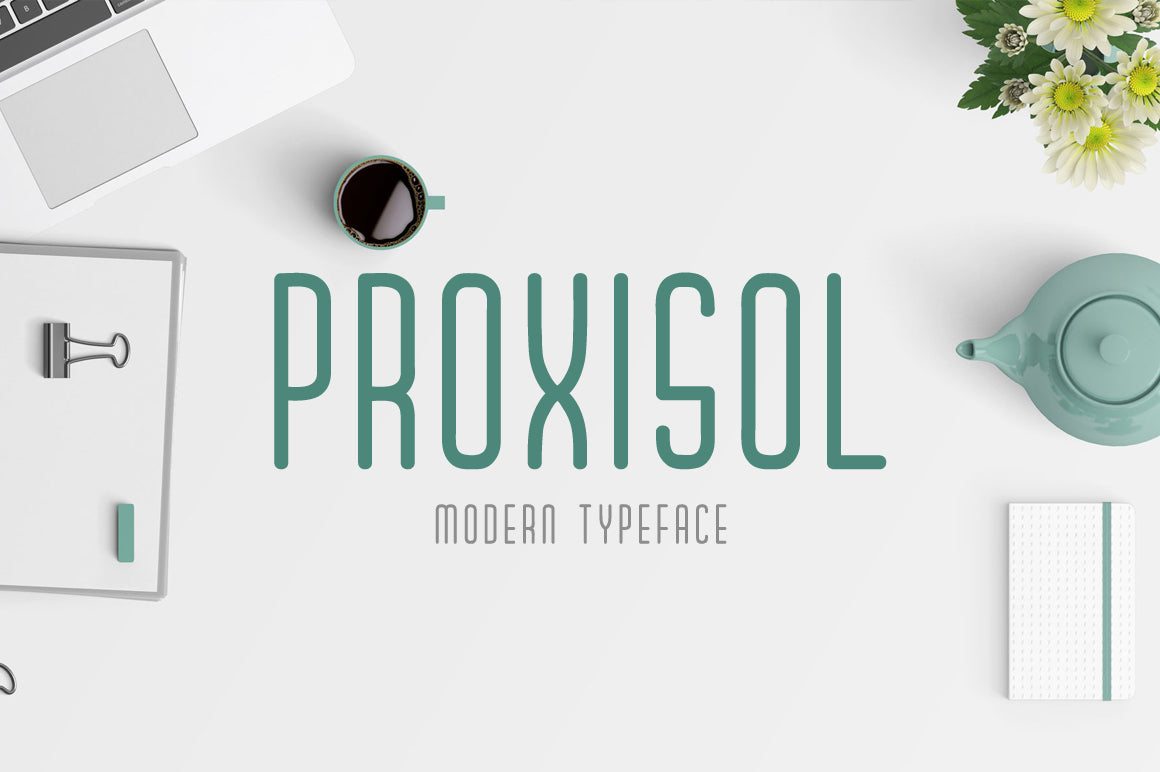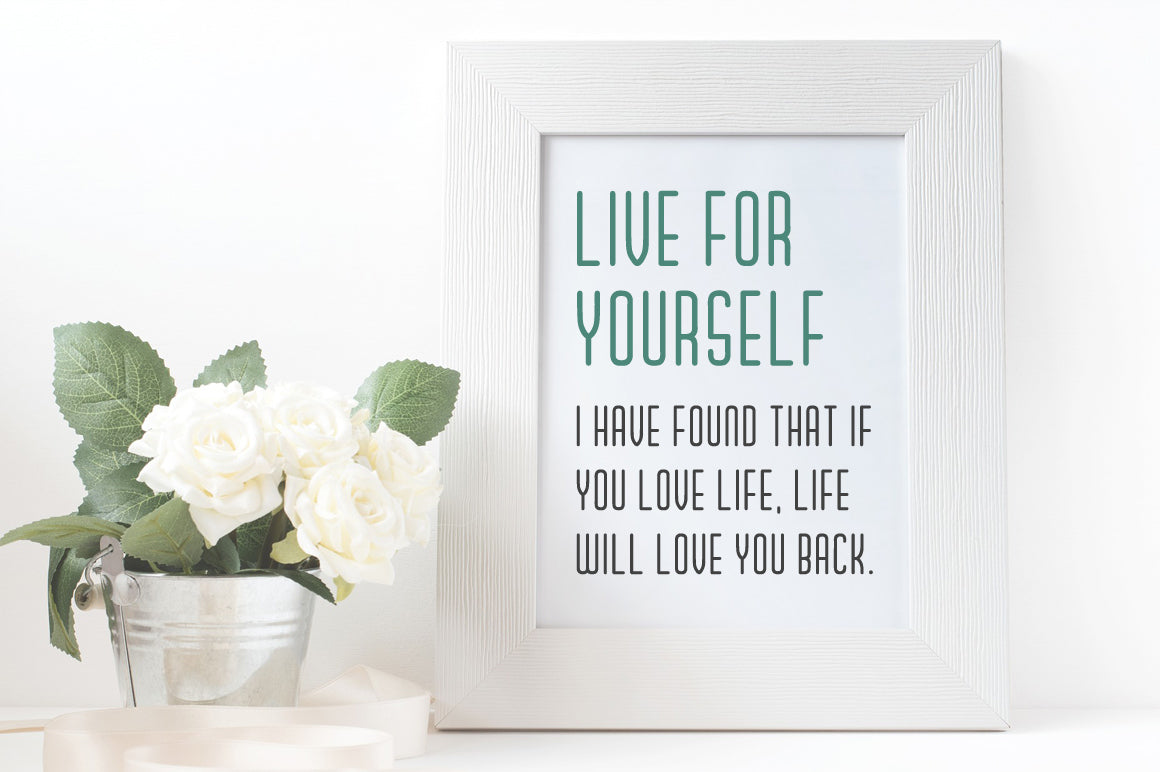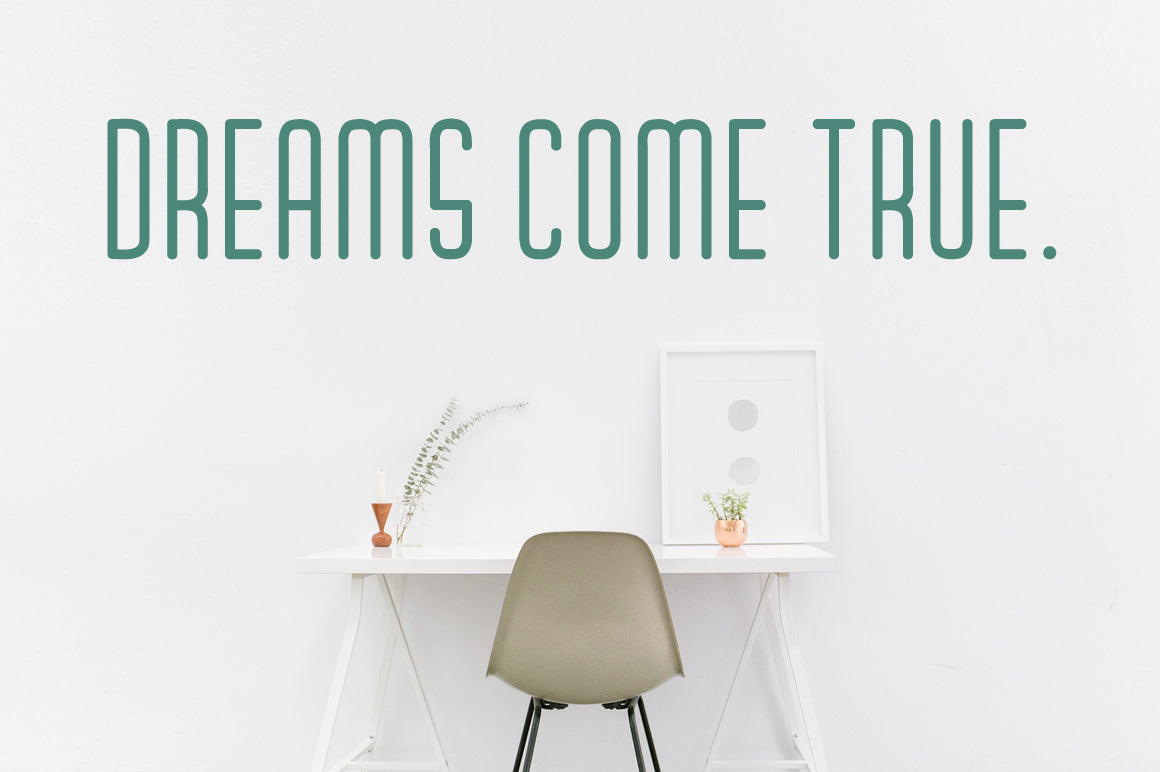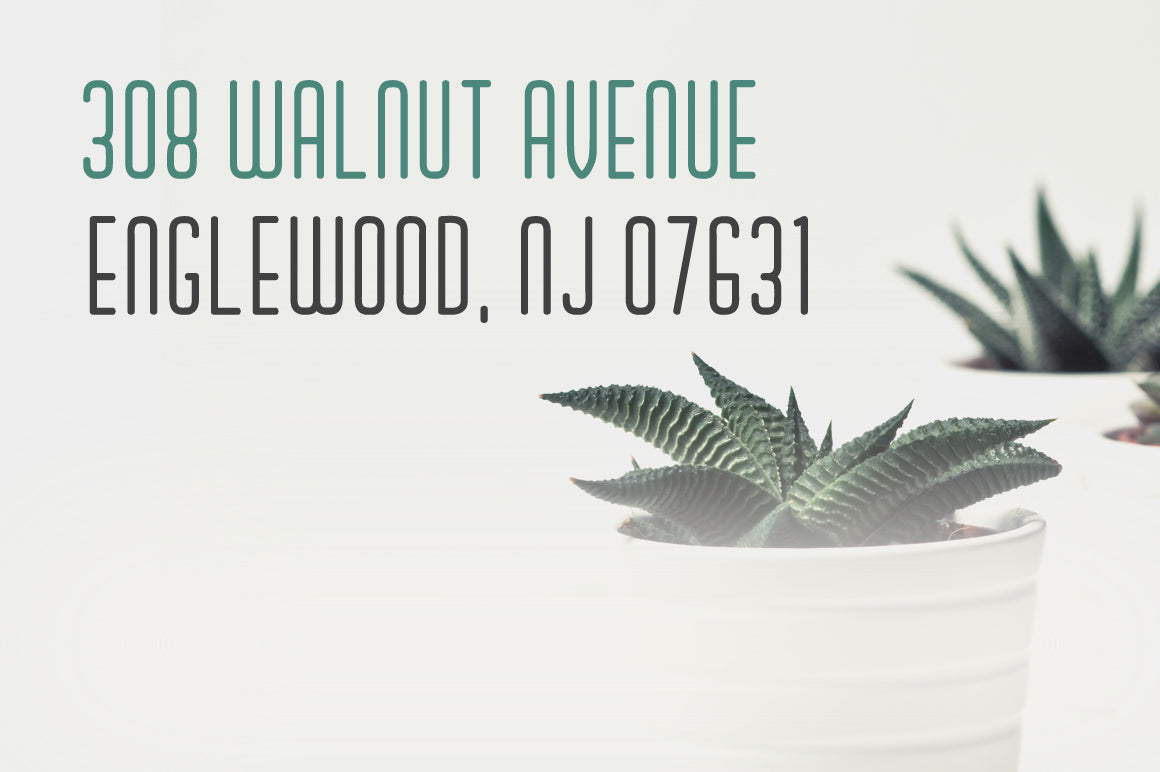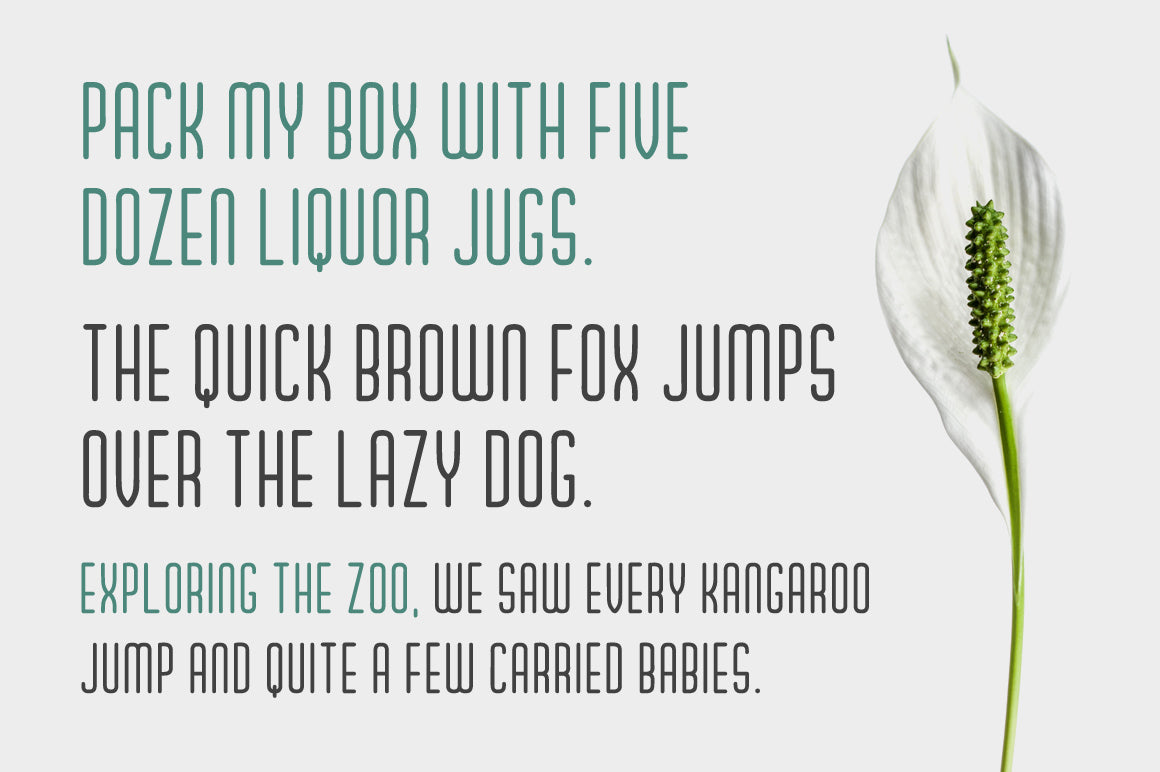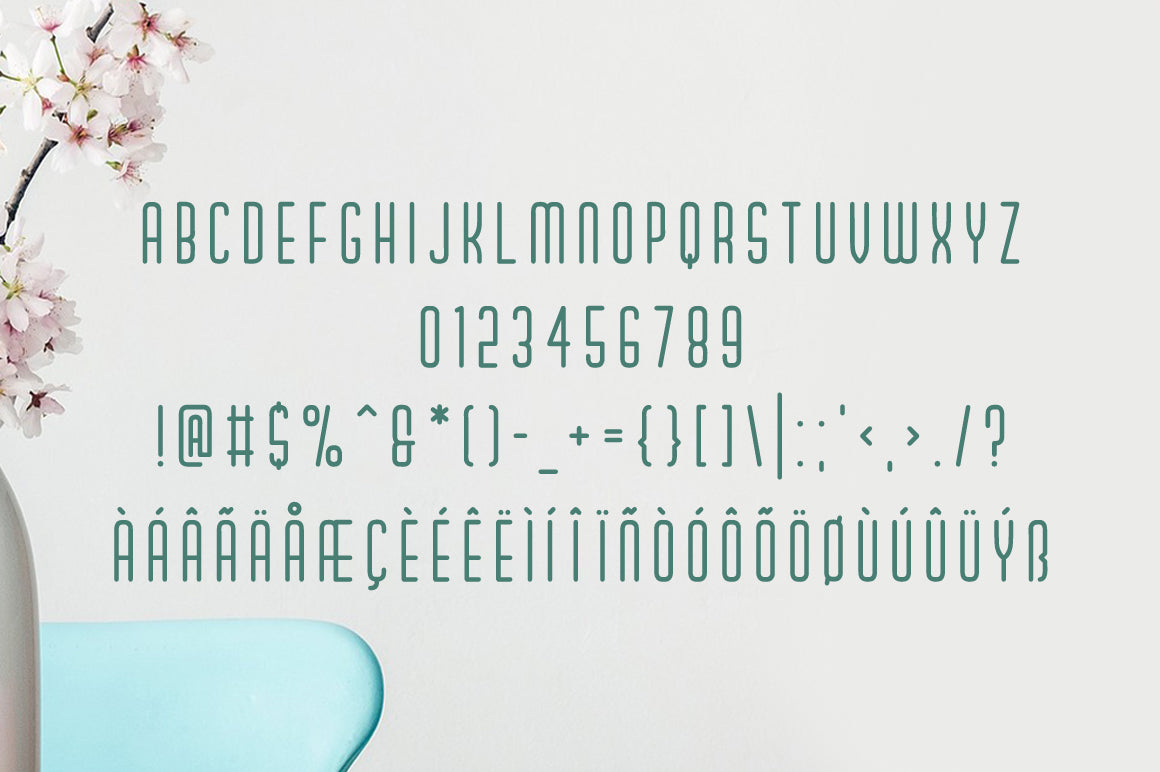
Proxisol Font
Proxisol is a modern and clean geometric display font, perfectly suited to branding projects and headlines. This is a striking yet easy-to-read font that brings clarity and style to any layout.
Its sharp angles and balanced structure make it versatile enough for both serious and carefree designs—whether you're working on a tech startup brand, a bold poster, or sleek packaging. With its contemporary feel and strong visual presence, Proxisol is a powerful addition to any designer's toolkit.